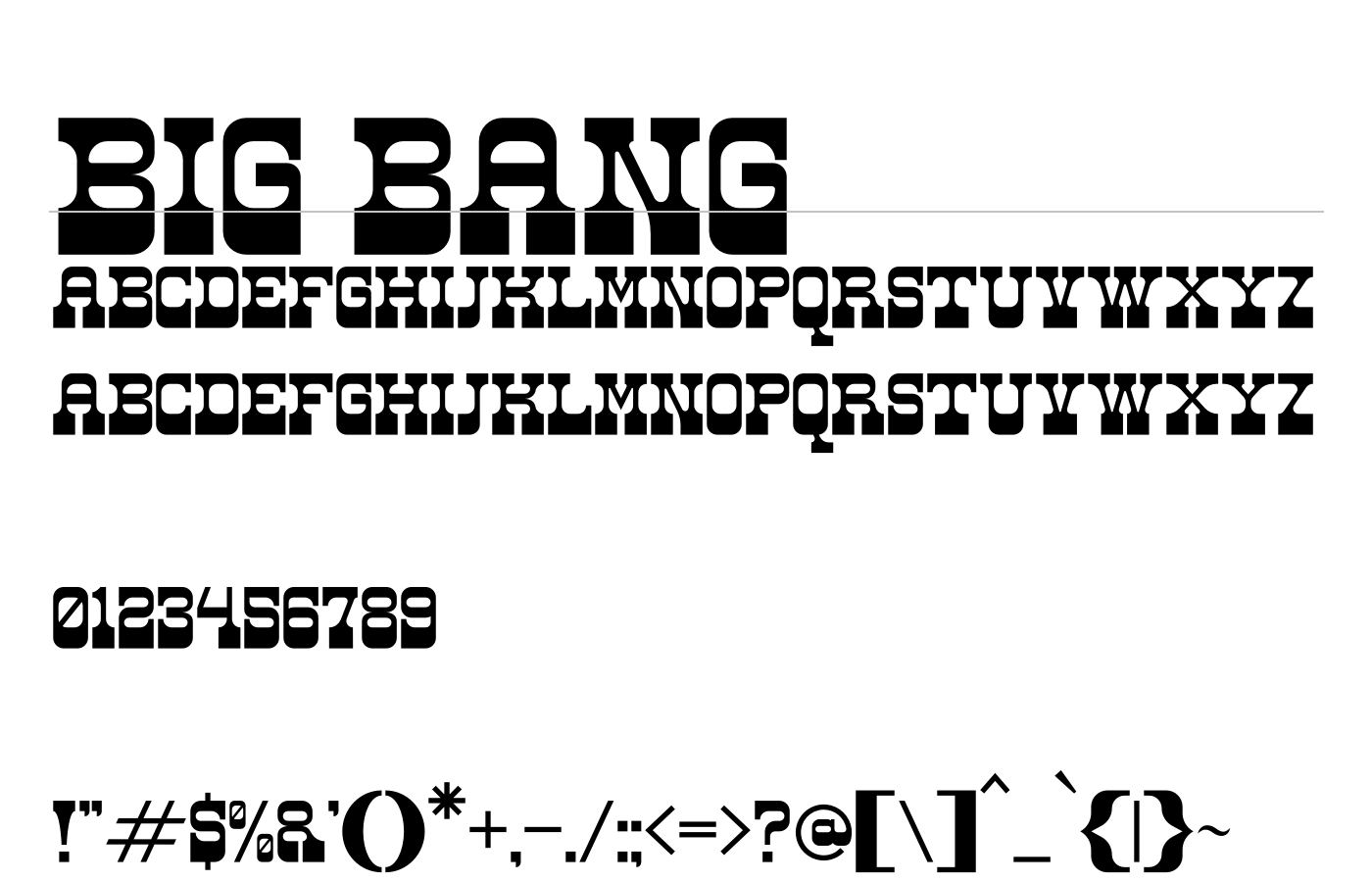
Big Bang Font is a bold and striking slab serif typeface with a condensed width and high contrast between thick and thin strokes. Its strong, blocky letterforms with rounded corners and distinctive geometric details give it a playful yet industrial feel, making it ideal for eye-catching headlines, logos, and poster designs that need a vintage or western-inspired vibe. This font works best where a bold statement is needed, combining uniqueness with readability in display contexts.
Big Bang Font
About Big Bang Font